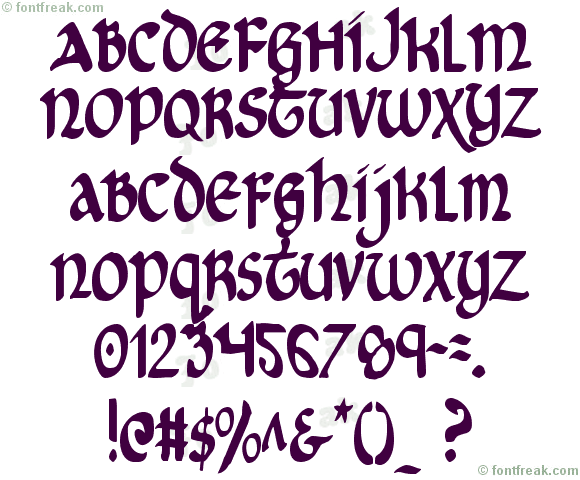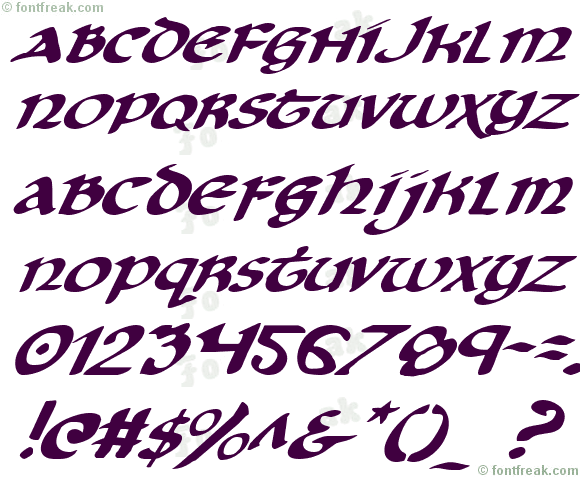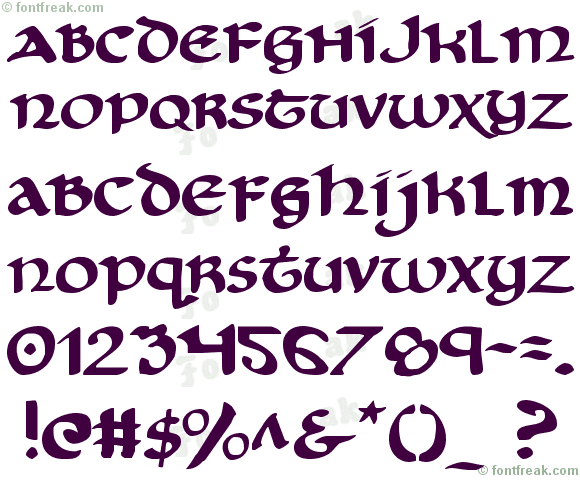
Cry Uncial
About Cry Uncial
Cry Uncial is a unique display font from Iconian Fonts, designed in 2000 by Martin Ross. This font falls under the uncial style category, characterized by its distinctively rounded and elegant letterforms that evoke a sense of historical charm. The stroke weight is moderate, providing a balanced visual appeal, while the contrast is subtle, enhancing legibility without sacrificing artistic flair. The spacing between letters is designed to create a harmonious flow, making it suitable for various applications. Decorative elements, such as the playful serifs and exaggerated curves, add a whimsical touch that can elevate any design.
Cry Uncial is perfect for a variety of creative projects. Its enchanting style makes it an excellent choice for wedding invitations, where a romantic and sophisticated look is desired. Additionally, the font works wonderfully for movie posters, particularly in fantasy genres, adding an air of intrigue and narrative depth. Restaurant menus can also benefit from its distinctive appearance, drawing attention to featured dishes and creating a memorable dining experience. This font is not only appealing for designers but also for small business owners looking to create unique branding that stands out in a crowded marketplace.